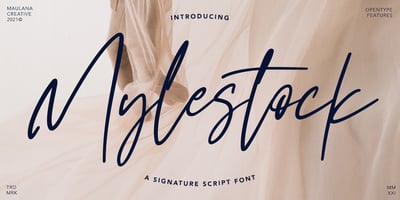
Mylestock
Mylestock font
Mylestock Font Family was designed by Gilang Maulana and published by Maulana Creative. Mylestock contains 1 styles and family package options. Mylestock is a handwritten script font, With fancy slanted and fun characters. It has Opentype features of ligatures, makes it a perfect choice for branding and digital designs. Use this font for logos, social media, websites, blogs, instagram, social media, business cards, branding, and more! Mylestock font support multilingual more than 100+ language. and good pair for your secondary text font with sans or serif. Make a stunning work with Mylestock script font. Cheers, MaulanaCreative